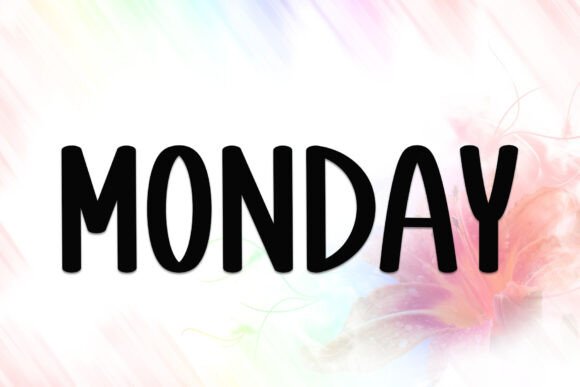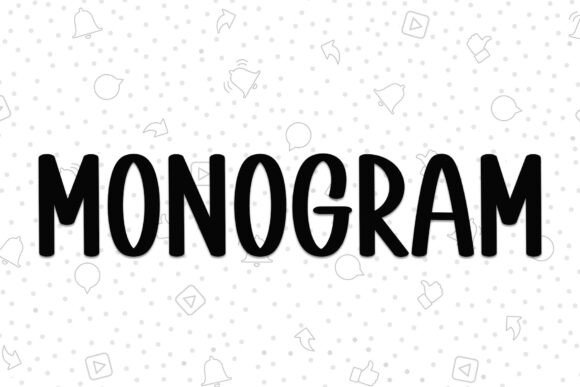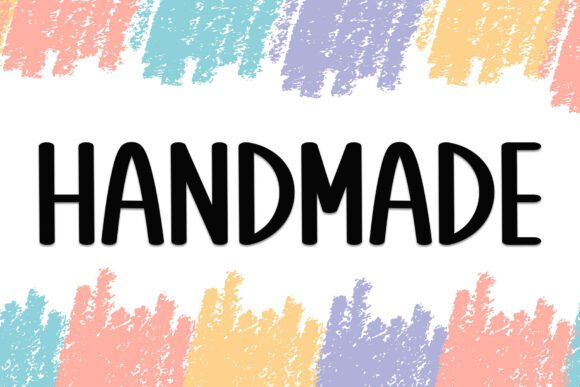
Introduction to Planner Christmas Font
As the snowflakes start to fall and the holiday lights twinkle, the creative juices begin to flow. For many designers, there’s nothing quite like the magic of the holiday season to inspire new ideas and spark imagination. And what better way to capture the essence of this special time of year than with the perfect font?
Enter the Planner Christmas Font, a delightful and festive typeface that embodies the spirit of the holiday season. With its charming decorations and unique flair, this font is the perfect addition to any creative project, from greeting cards and gift labels to holiday-themed projects that demand a touch of cheer and nostalgia.
Whether you’re a seasoned designer or a DIY enthusiast, the Planner Christmas Font is a valuable design resource that’s sure to bring joy and wonder to your work. And with its PUA coding, accessing all the amazing glyphs and ligatures is a breeze – making it a free download that’s perfect for any high-quality design project.
Key Features of Planner Christmas Font
- Unique, festive design perfect for creative projects and holiday-themed designs.
- High-quality font with transparent background, ideal for planner spreads and digital designs.
- Includes a range of decorative elements, such as ornaments and holly, to enhance your designs.
- Designed to be highly legible, even at small font sizes, making it perfect for planner layouts and journaling.
Honest Review: Planner Christmas Font
I recently stumbled upon the Planner Christmas Font, and I have to say it’s a great addition to my design resource library. The font is perfect for any creative project that needs a touch of festive cheer.
- ✨ The high-quality design is perfect for planner layouts, cards, and other paper crafts.
One thing to note is that the font is a bit limited in terms of its use. It’s best suited for Christmas-themed projects and may not be as versatile as other fonts.
- ⚠️ Limited use for non-Christmas projects.
- ⚠️ Not ideal for large-scale text or headings.
Overall, I’m impressed with the Planner Christmas Font. It’s a great addition to my design library, and I’m sure it will come in handy for many future projects. If you’re looking for a fun and festive font for your next creative project, this is definitely worth checking out.
The Planner Christmas Font is perfect for a variety of design projects, including:
- Christmas cards and invitations.
- Gift tags and labels.
- Party decorations and signage.